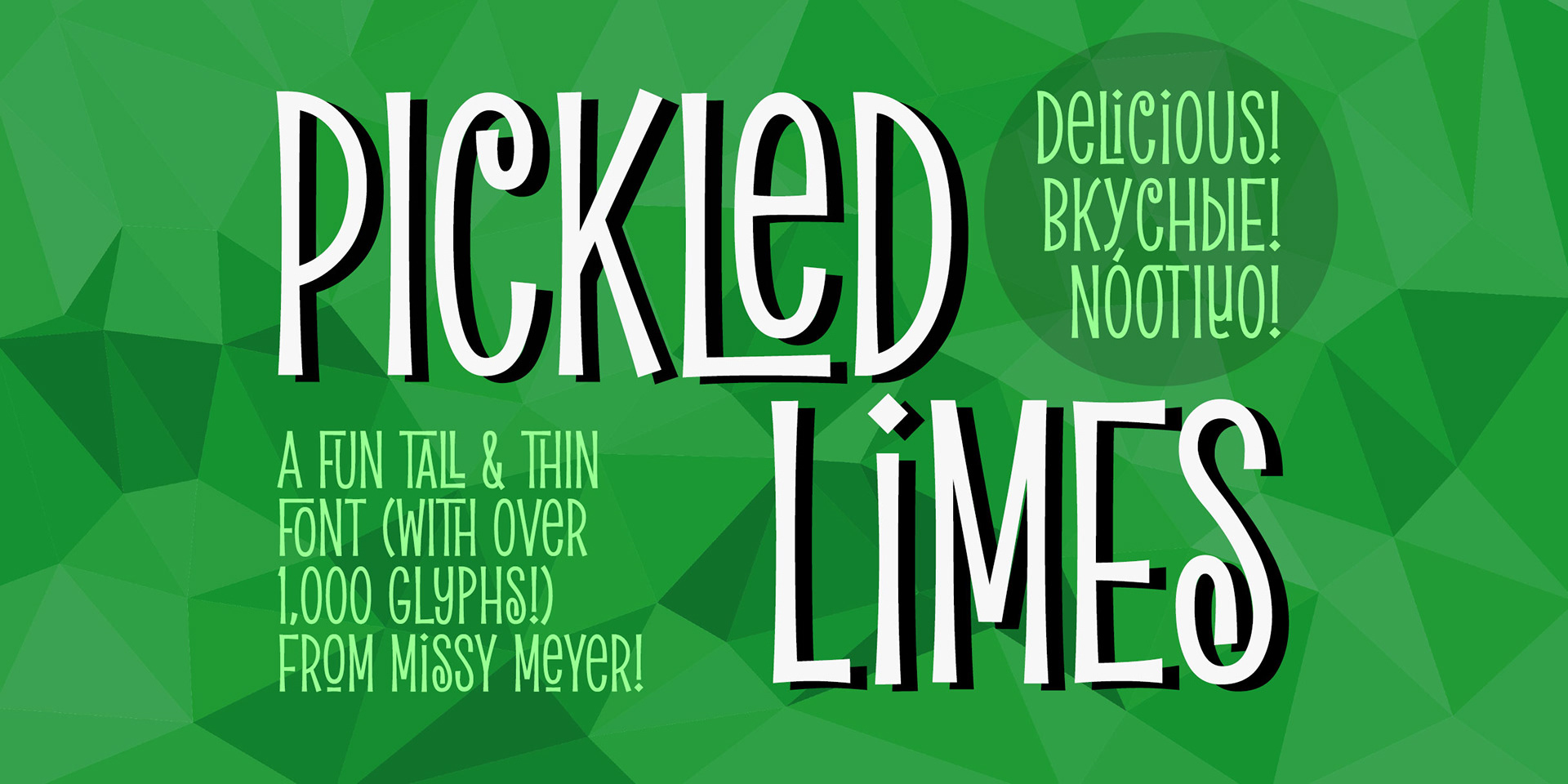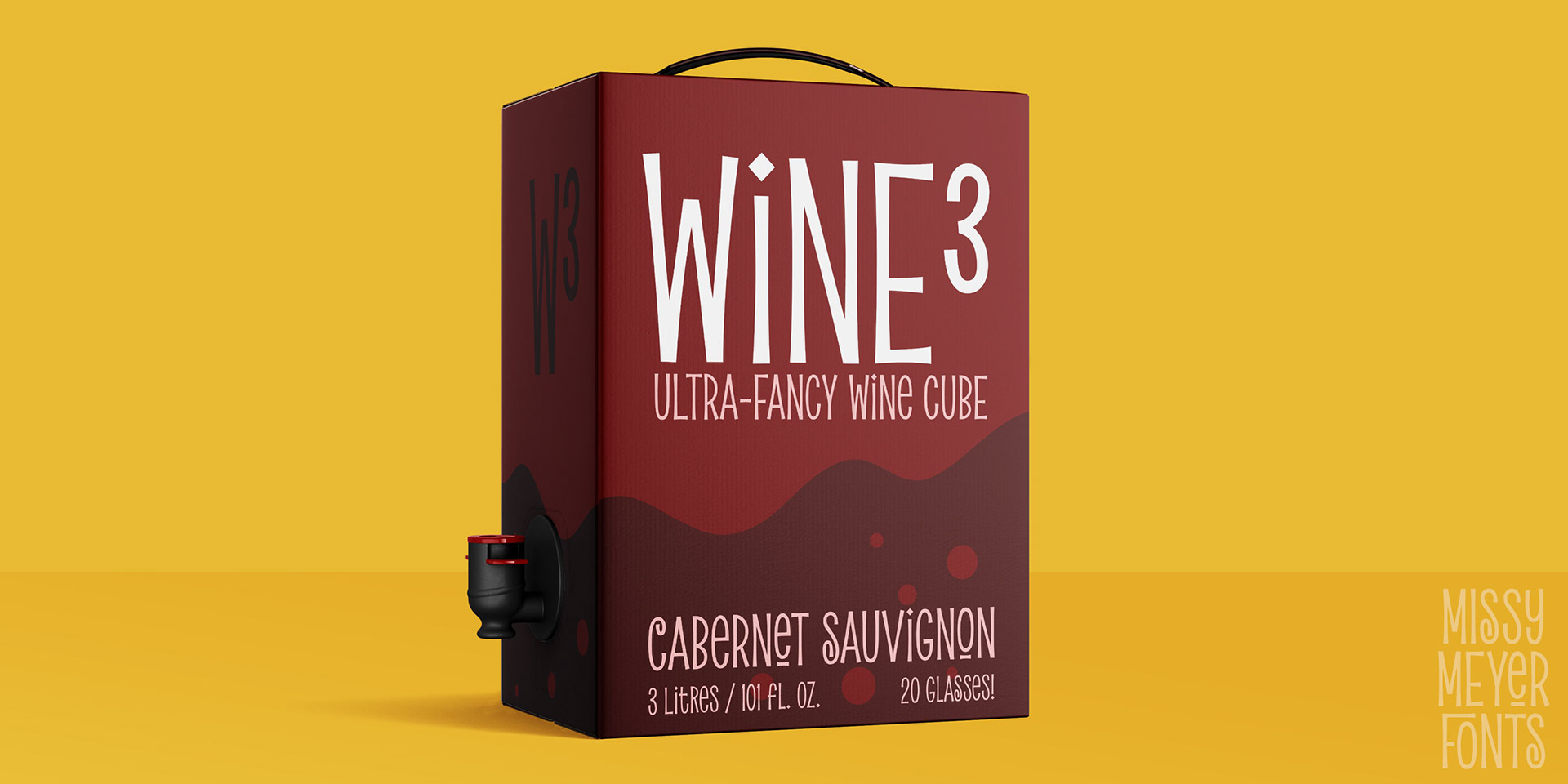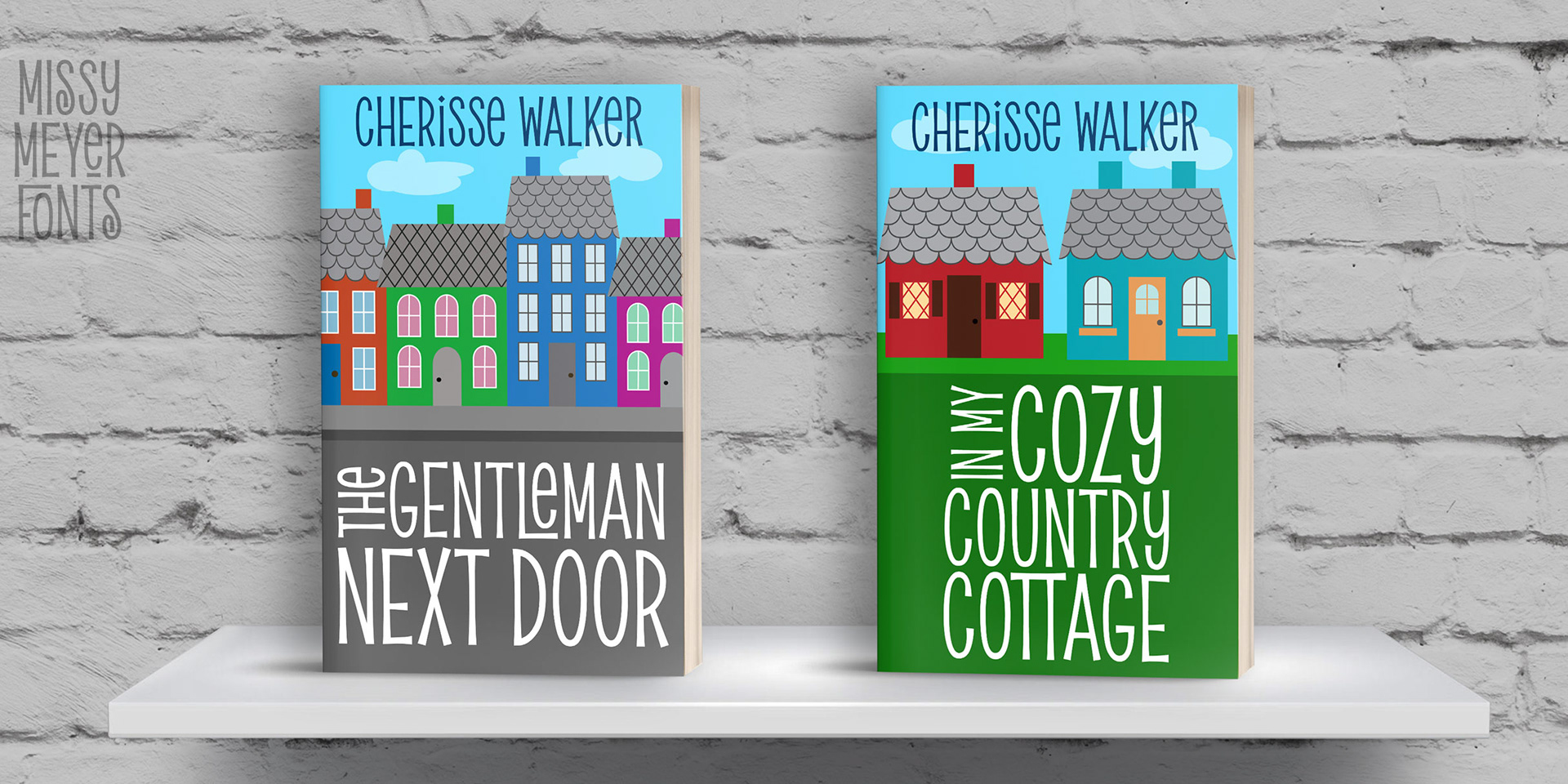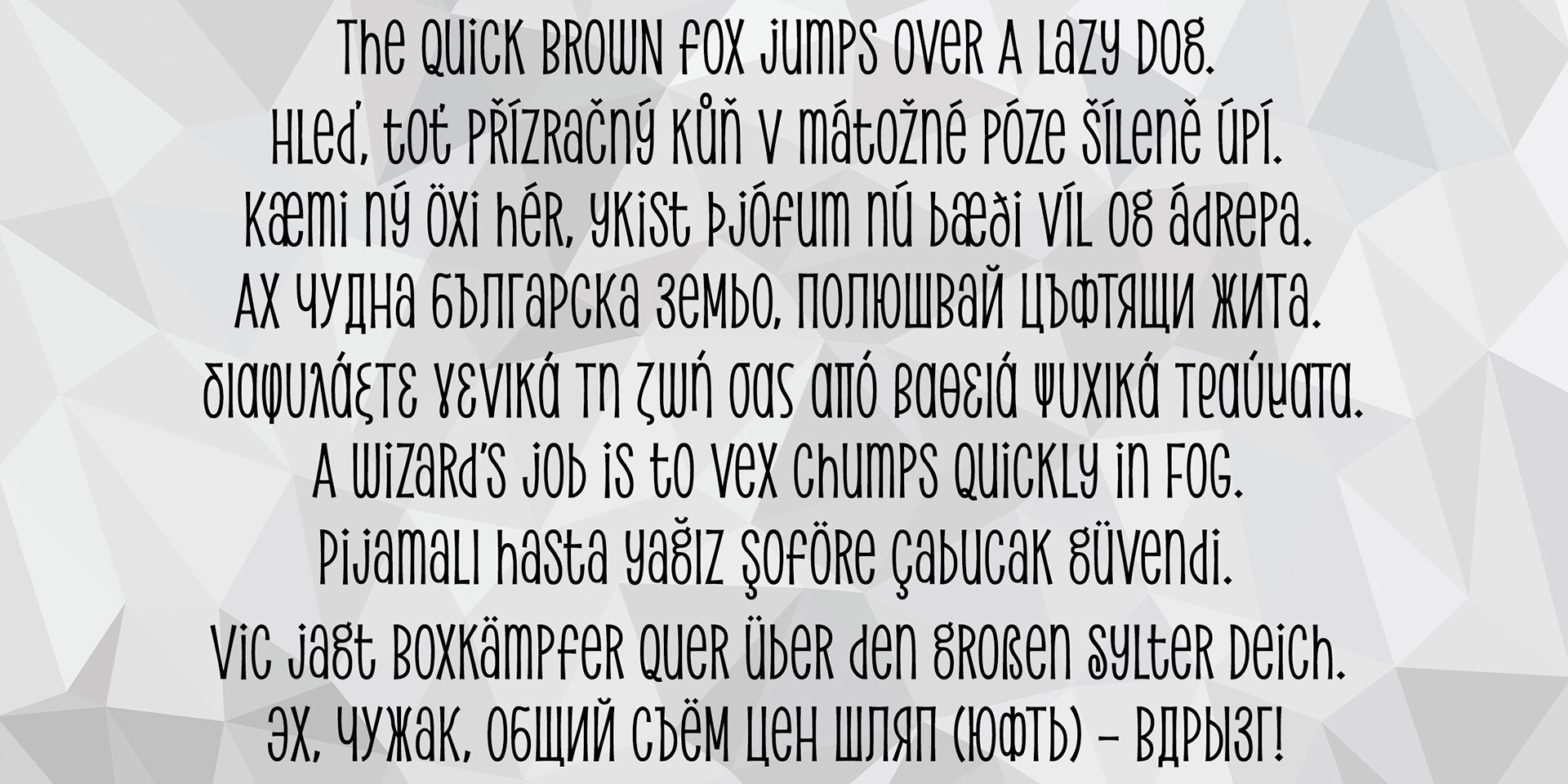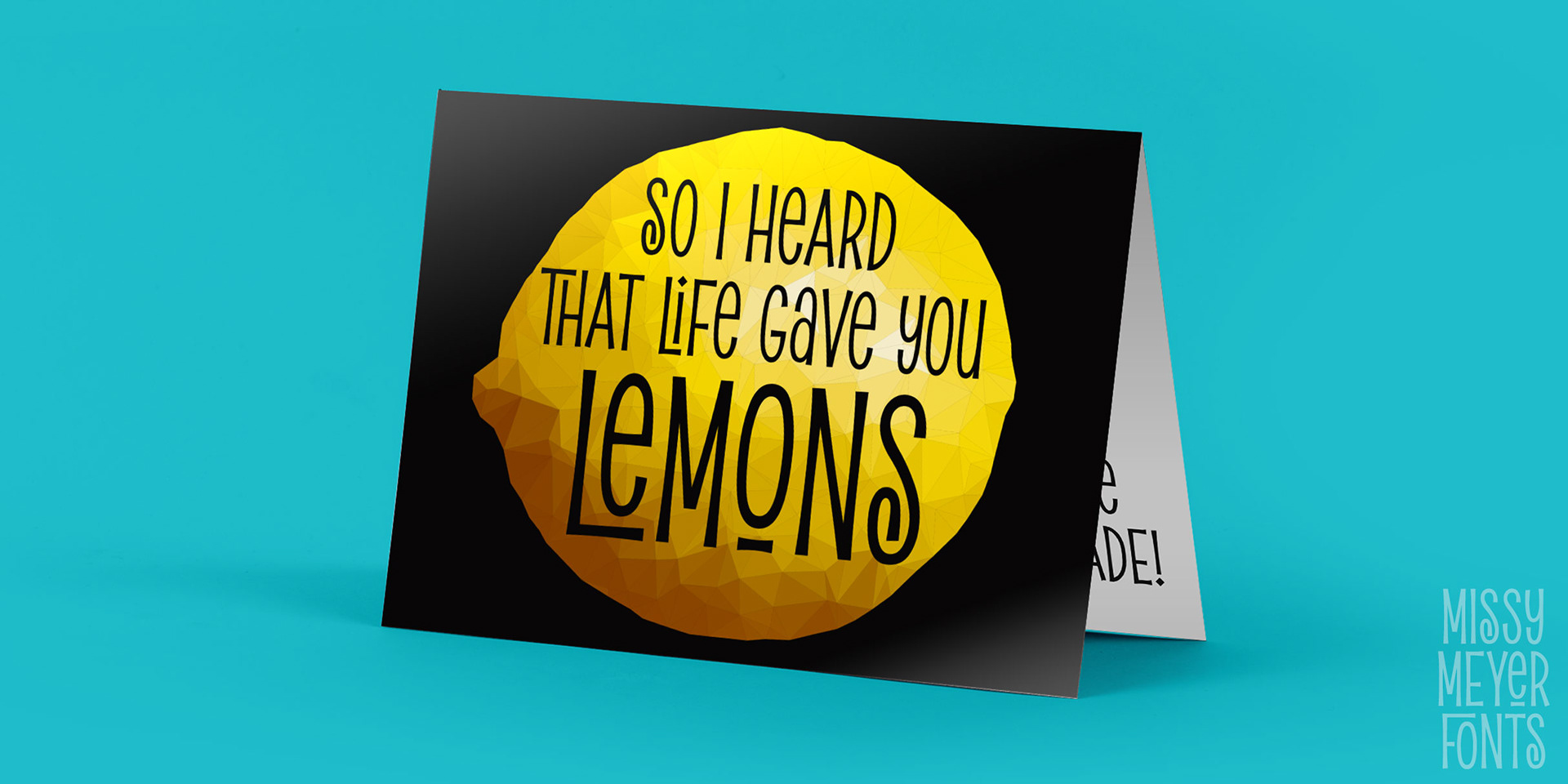
It all started with the letter S. I drew the S, I liked the S, I based a font around the S! Enjoy Pickled Limes, a tall, thin, and narrow unicase font (where uppercase and lowercase are all the same height). I've built this font clean from the ground up, from ultra-sharp lines and corners to super-smooth curves.
The gentle rounding, slightly flaring ends, and whimsical character mix make this font tons of fun to use on its own, but it also pairs well with tons of other font styles!
I've stretched my wings on this one; in addition to my usual 300+ Extended Latin characters, I've also made Unicode's 121 Greek and 256 Cyrillic characters for even more language support. Plus 90+ catchwords, ligatures, and alternates, bringing Pickled Limes over 1000 total glyphs.